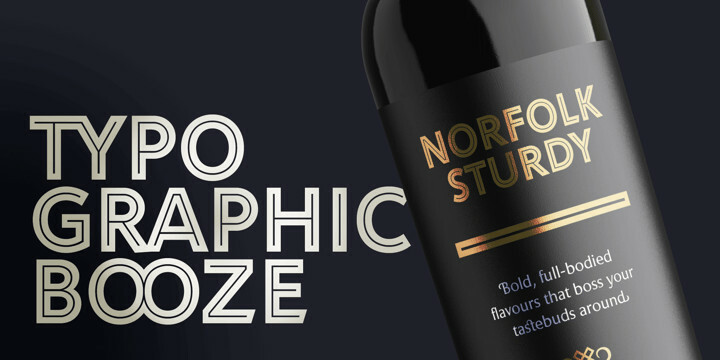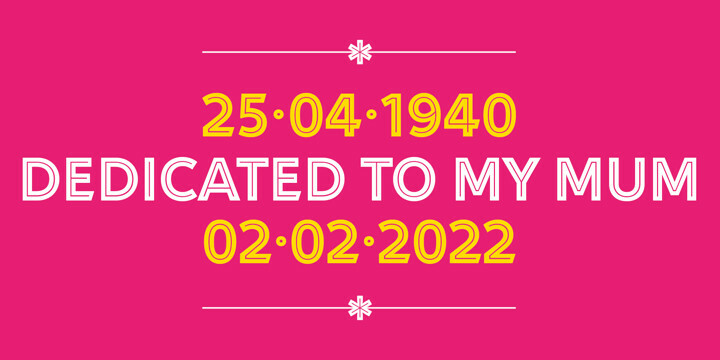
Rahere Sans Inline Font
Rahere Sans Inline FontRahere Sans Inline is a bold, no-nonsense display font featuring an inline that imbues the design with classic overtones while still looking modern. It’s imposing without being overpowering and practical but not boring.
As part of the expanding Rahere typeface family, Rahere Sans Inline is specifically designed to complement both Rahere Sans and Rahere Roman Display, pairing beautifully when used for headings, stand-out quotes or drop caps.
Whether you’re in design, marketing or advertising, Rahere Sans Inline is a versatile display font suitable for all types of applications including:
Design, advertising – posters, leaflets, brochures, adverts, books and banners
Publishing – magazine covers and editorials and book covers
Music, film – DVDs and CDs
Announcements – offers, events, birthdays and anniversaries
Rahere Sans Inline is a capitals-only font with small caps in the lowercase slots and matching numerals, plus a few ligatures. The following languages are supported: Western Europe, Vietnamese, Central/Eastern Europe, Baltic, Turkish and Romanian.